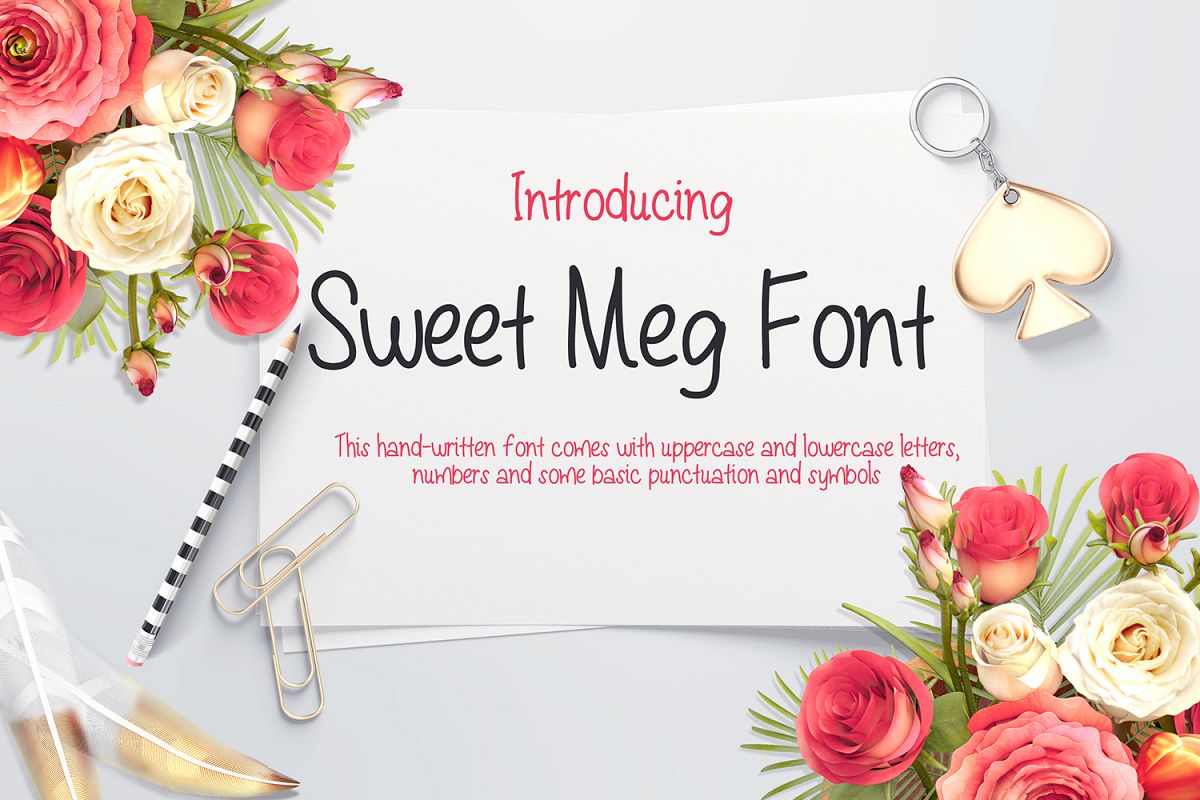
Sweet Meg - a Handwritten font
SweetMeg
Sweet Meg is a based off my own handwriting with cleaner lines and sweet curves. This font can be used for various purposes: such as headings, signature, logos, posters, scrapbooking, signage, labels, wedding invitation, birthday invitations, badges and so much more.